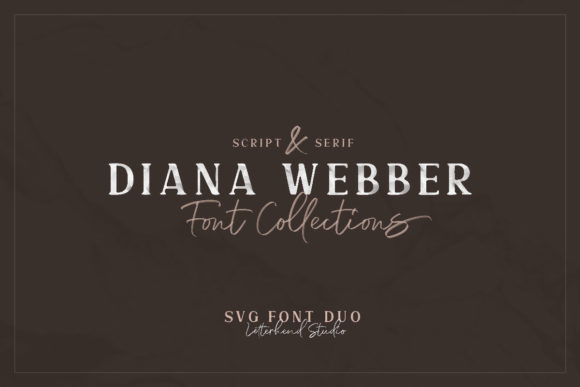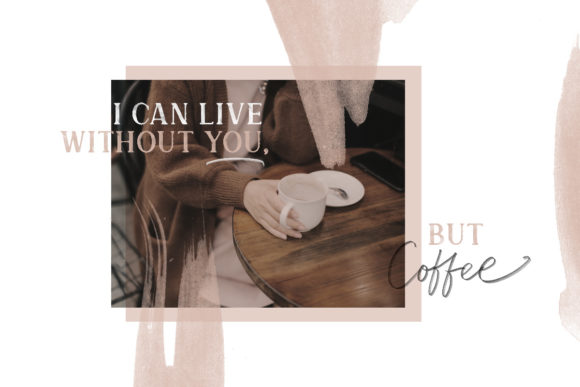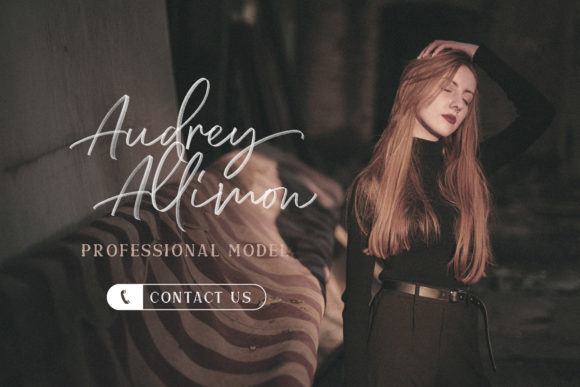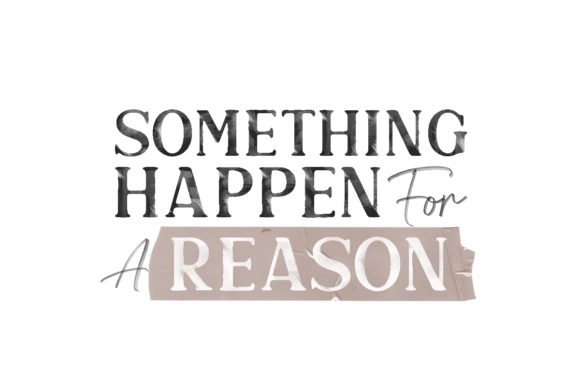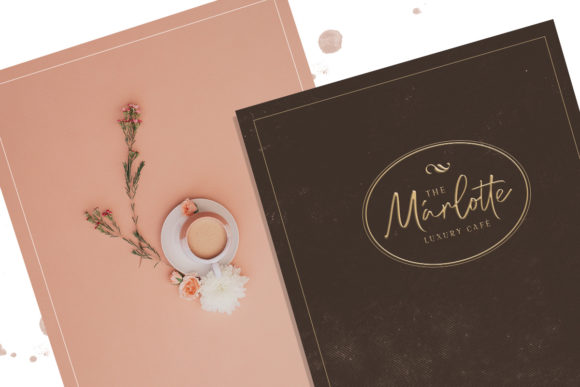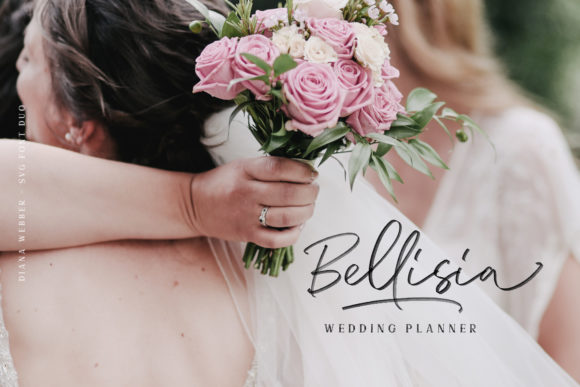
Introduction to Diana Webber Family Font
There’s something magical about the moment a design project comes together – the right mix of colors, typography, and creativity. For designers, this feeling is what drives us to keep pushing the boundaries of what’s possible. And, when it comes to choosing the perfect font, every detail matters. That’s why we’re excited to introduce you to the Diana Webber Family Font, a bold display font that’s sure to elevate your next creative project.
Whether you’re working on a design resource for a client or experimenting with a new concept, having access to high-quality fonts can make all the difference. With the Diana Webber Family Font, you’ll get a comprehensive set of uppercase and lowercase letters, unique punctuation, symbols, and numerals, and even stylistic sets of alternate ligatures. Plus, with its transparent background, you can easily layer it over other elements for a seamless look.
Diana Webber Family Font
- High-quality font family with a wide range of styles, including serif, sans-serif, and script fonts.
- Each font style is carefully crafted with a transparent background, making it easy to use with any design element.
- Perfect for designers looking for a high-quality font family to enhance their creative project, with over 100 unique characters and glyphs.
- Great for use in graphic design, digital art, and other creative projects where a unique and stylish font is required.
Honest Review: Diana Webber Family Font
I recently stumbled upon the Diana Webber Family Font while searching for a design resource to spice up my creative project. I was pleasantly surprised by the high-quality font that’s perfect for various design applications.
Here are some things that work well about this font:
- ✨ Unique and elegant design that adds a touch of sophistication to any project
- ✨ High-quality raster images that can be used on a transparent background
- ✨ Supports various languages, making it a great choice for international design projects
- ⚠️ Limited font weights and styles, which might not be suitable for projects that require a wide range of font variations
Overall, I’m impressed with the Diana Webber Family Font and would definitely recommend it to designers who are looking for a high-quality, elegant font for their creative projects. Just be aware of the limitations mentioned above.
Common Use Cases for Diana Webber Family Font
The Diana Webber Family Font is suitable for a wide range of creative projects, including logos, brochures, business cards, and websites. It is also available for free download, making it a high-quality design resource for designers and non-designers alike.
Q: Is the Diana Webber Family Font high quality and suitable for print materials?
Yes, the Diana Webber Family Font is designed to be high quality and suitable for print materials. The font’s design is optimized for clarity and readability, making it perfect for use in business cards, brochures, and other marketing materials. With its high quality design, you can trust that your design project will look professional and polished.